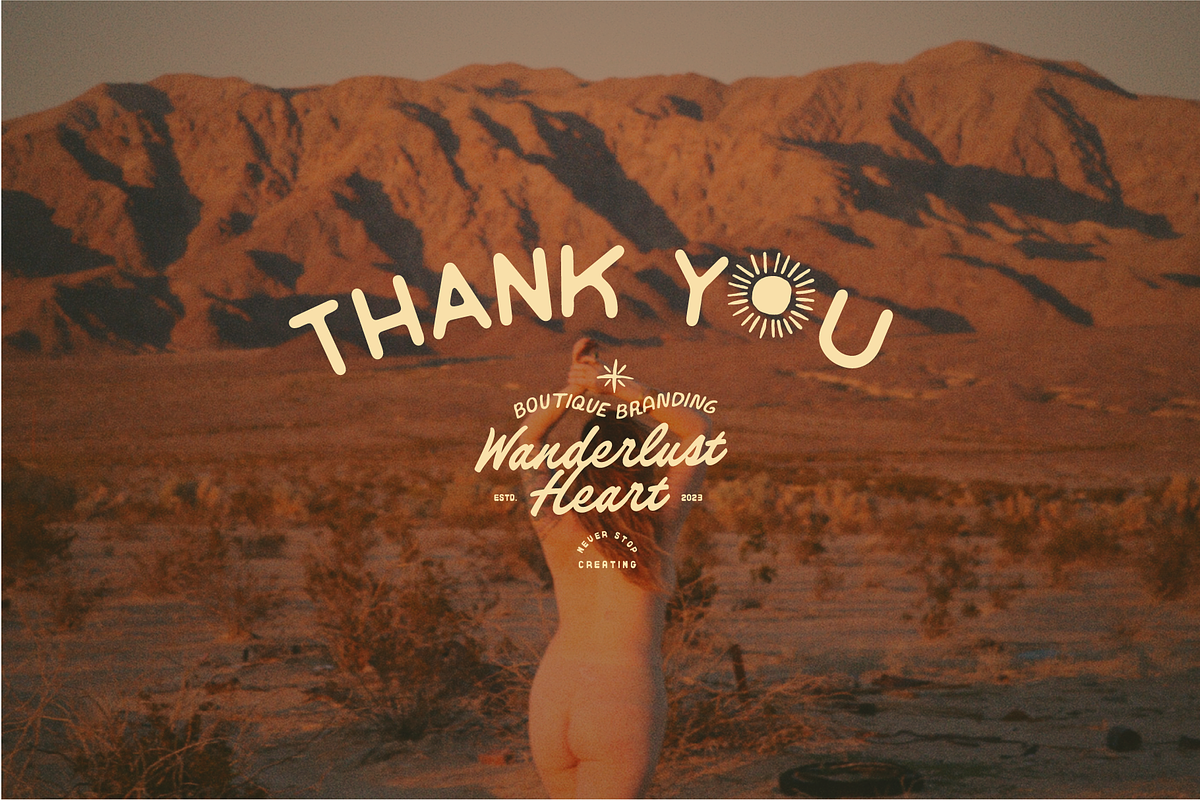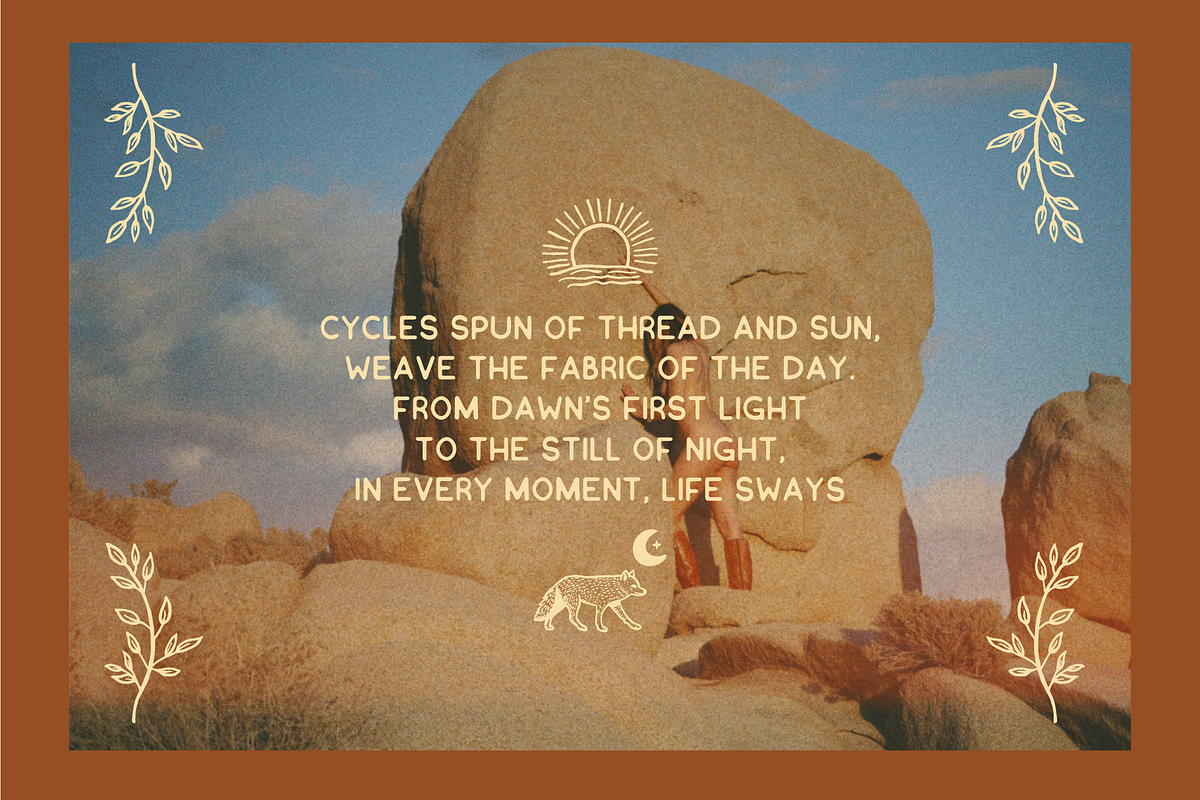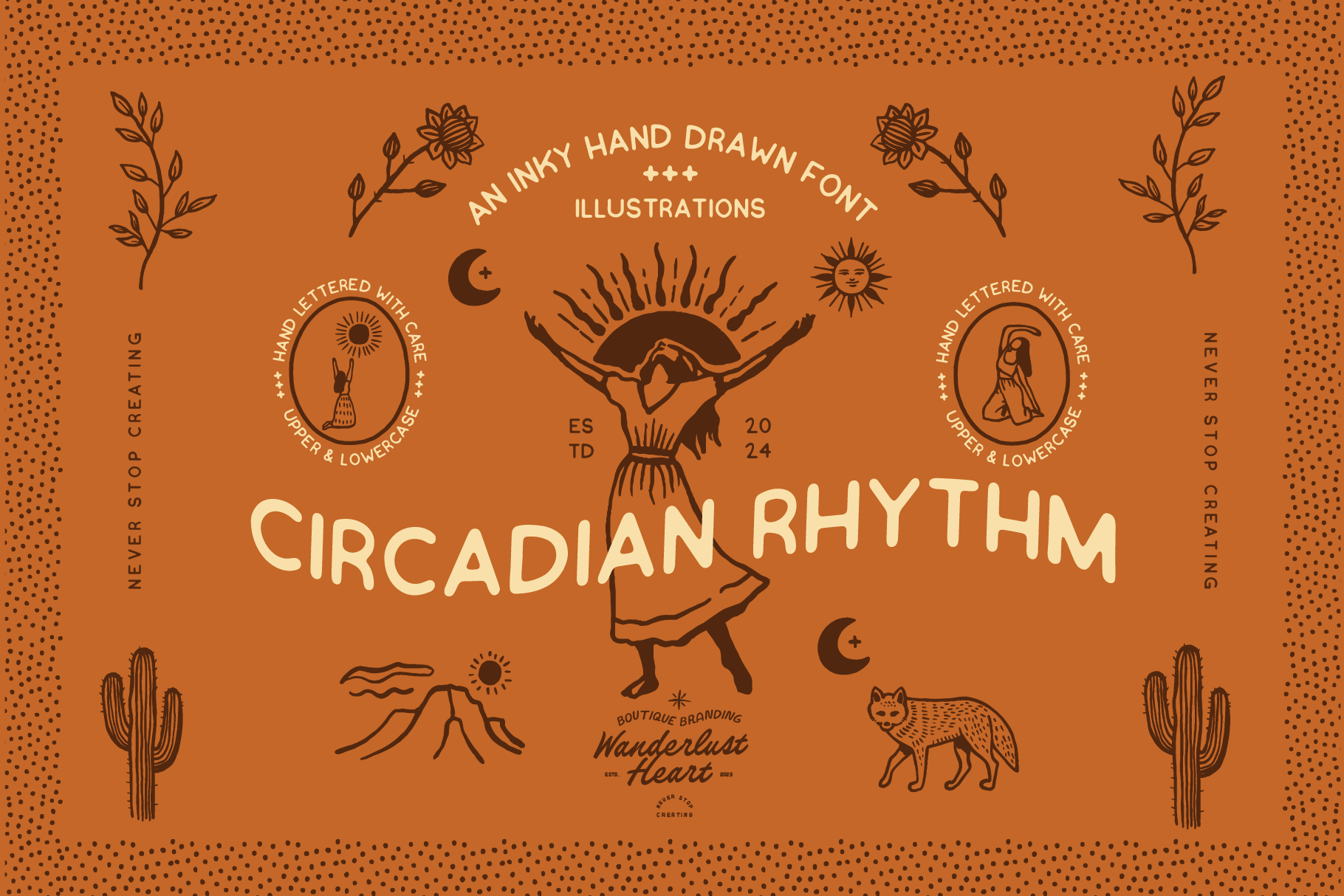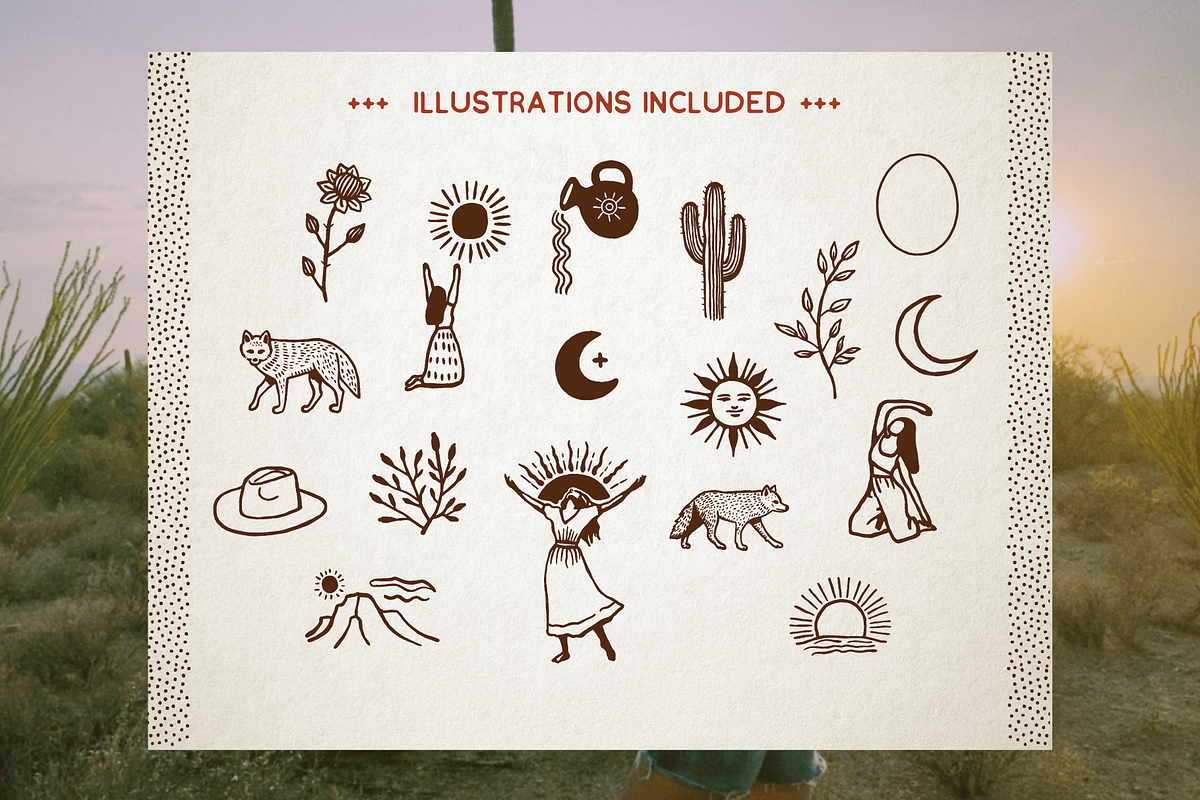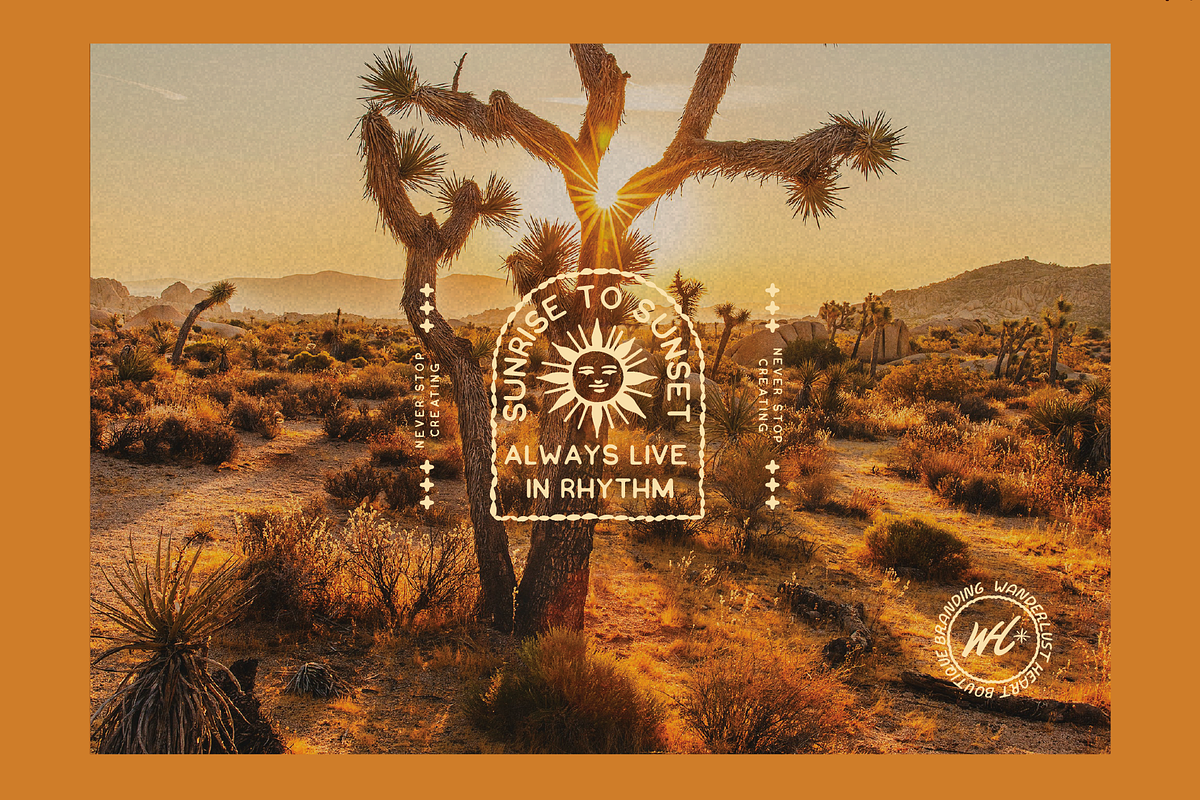
Hand-Drawn Font + Illustrations
Hand-Drawn Branding Display Font + Extras
Circadian Rhythm is a hand-drawn ink-bleed display font inspired by natural rhythms, desert landscapes, and vintage typography. Organic letterforms and subtle texture give this font a relaxed, expressive feel that works beautifully in logos, packaging, apparel, and brand marks where personality matters.
Designed to feel intentional rather than trendy, Circadian Rhythm brings a boho, nature-inspired edge to modern branding and creative projects.
Included bonus hand-drawn vector illustrations allow you to extend the font into a cohesive visual system — perfect for designers building distinctive, soulful brands.
Perfect for
- Logos & submarks
- Branding & packaging
- Apparel & merch design
- Editorial headlines
- Posters, stickers & creative layouts